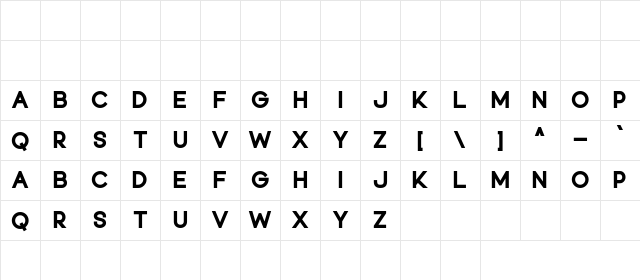
Artistry Extra Black Free Font
Artistry Extra Black
Style: Extra Black
Foundry: NanDesign Foundry
Designer: Frada Nanda
Artistry Extra Black Family
Artistry Extra Black
Design Context for Artistry
Artistry is a composed and adaptable typeface that performs quietly and consistently across a wide range of design contexts.